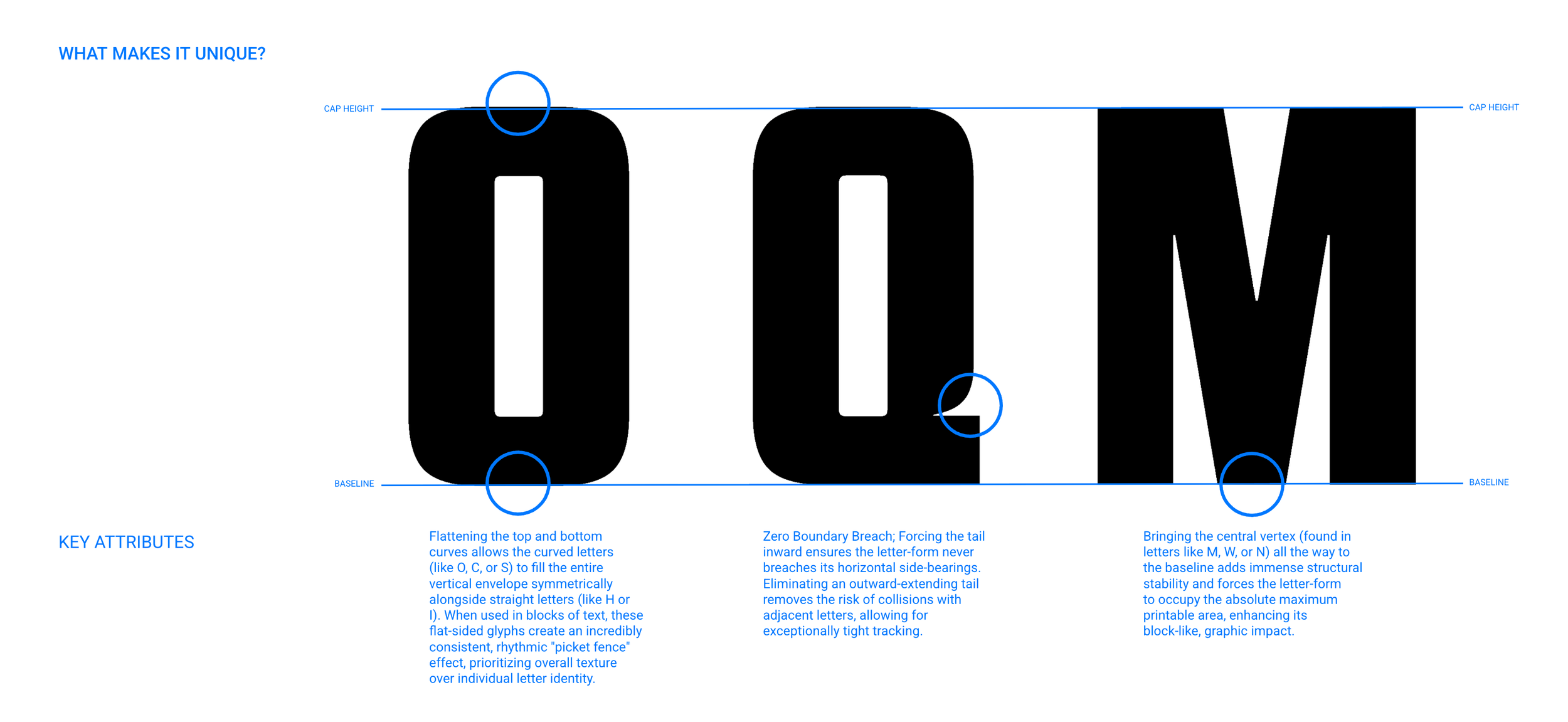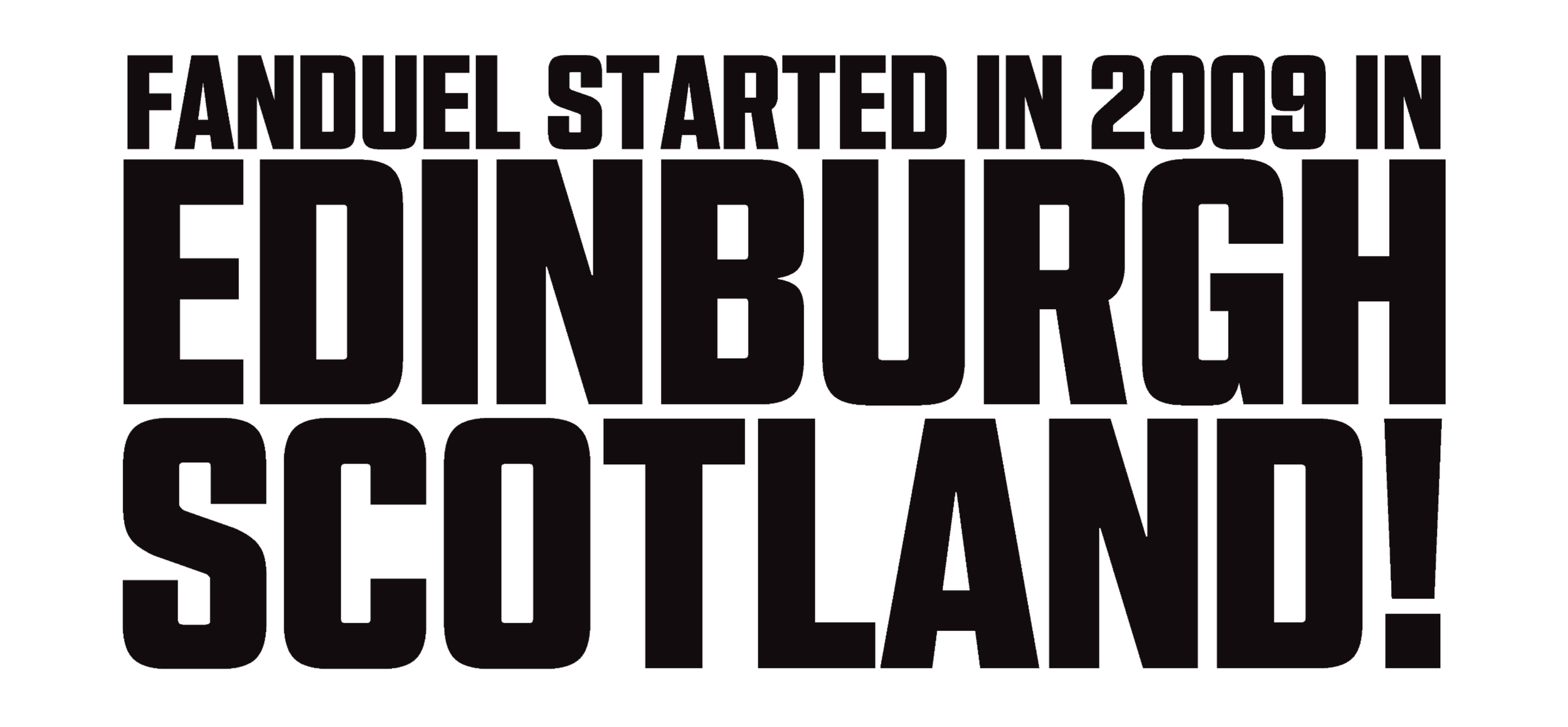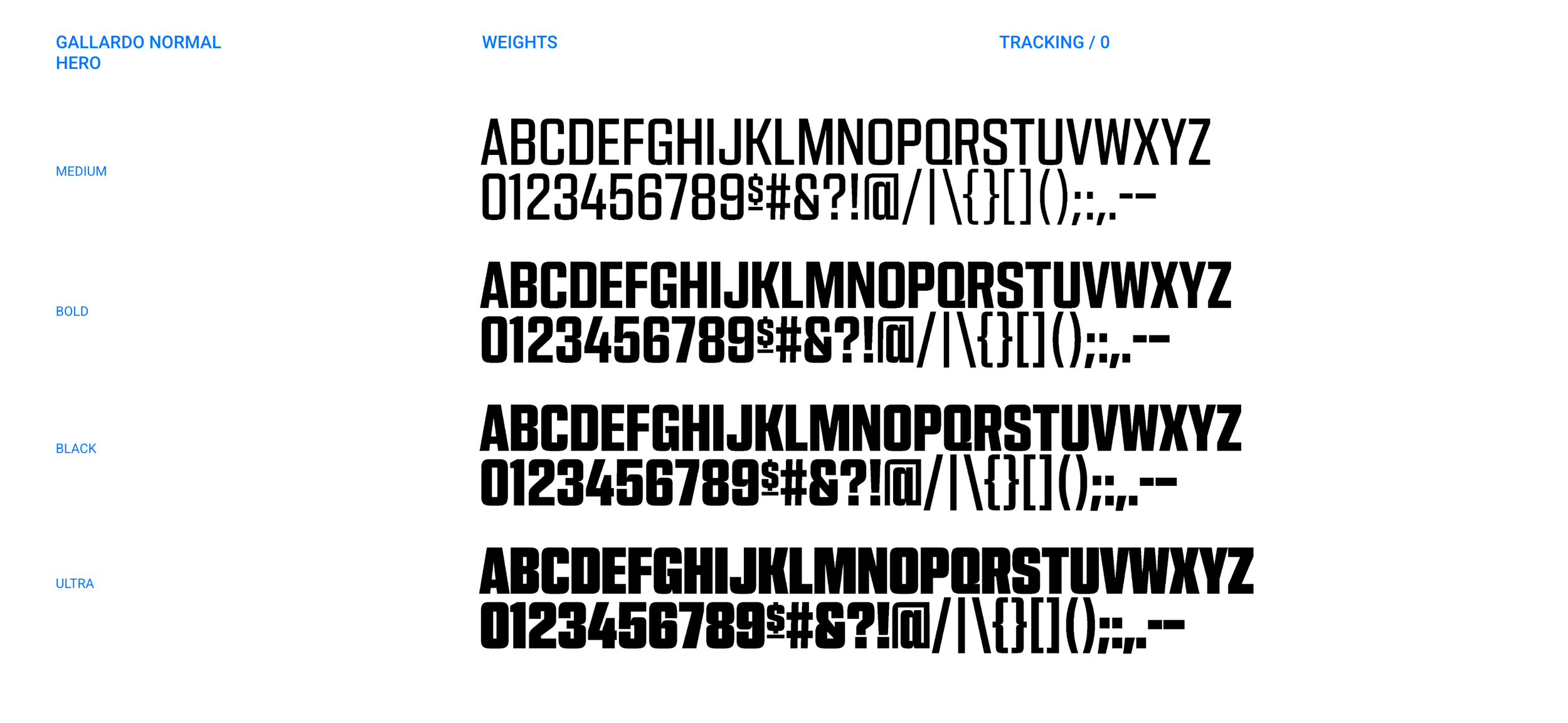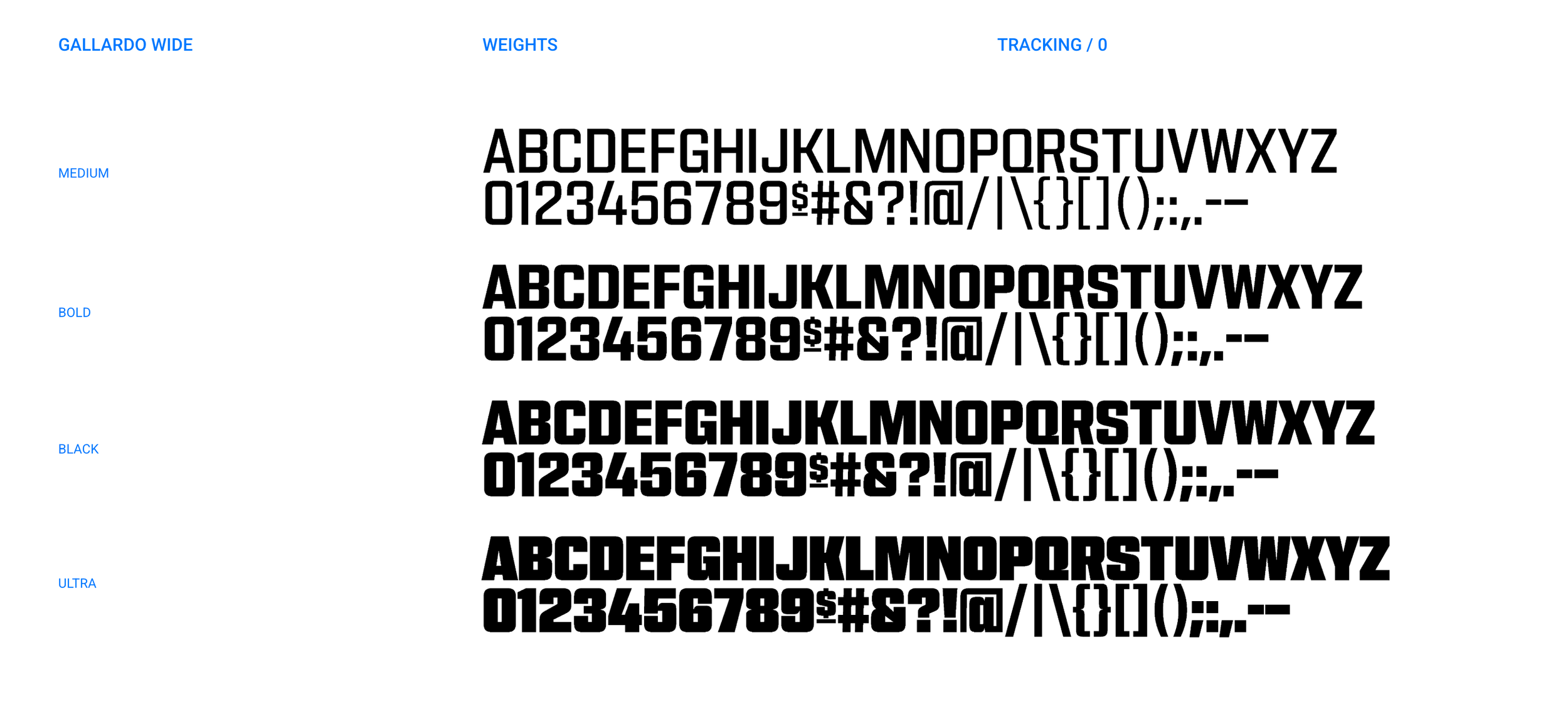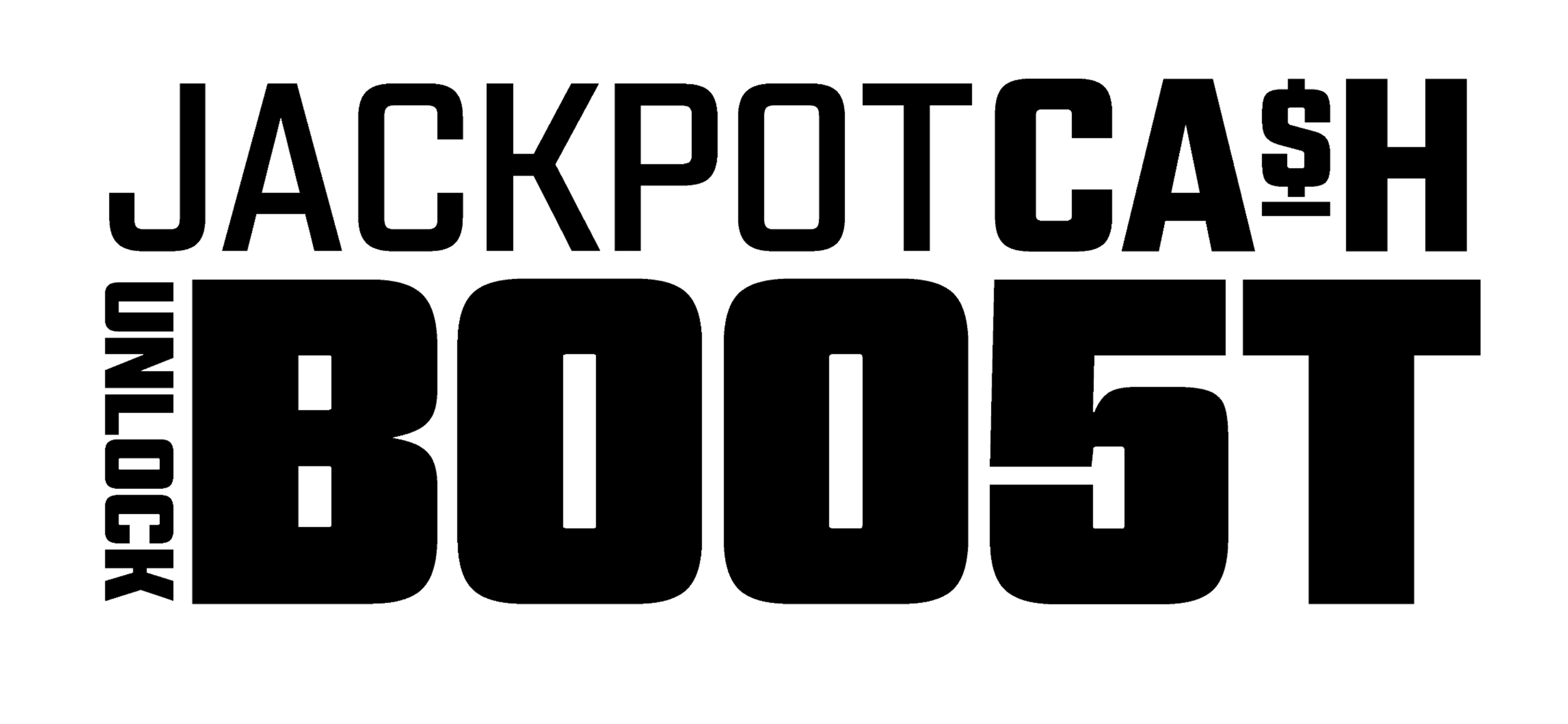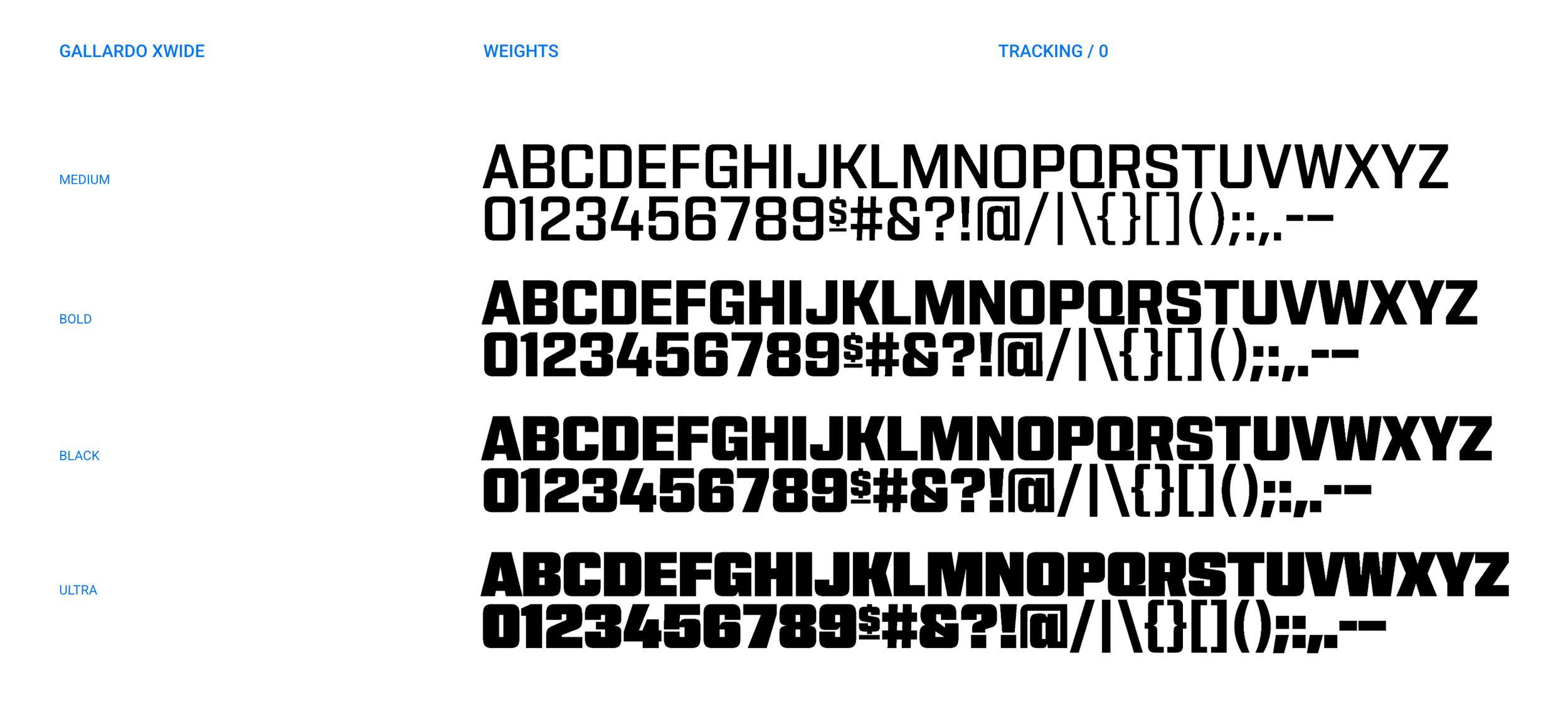
FANDUEL CUSTOM FONT
I led the development of FanDuel’s first custom typeface because I believed the brand needed a distinctive and ownable visual element. Over six months, I directed the McClure team (CD and type designer) alongside our internal team, ensuring the system could perform across every product, platform, and marketing touchpoint. The initiative created nearly $5 million in savings while giving FanDuel a flexible new brand asset built specifically for its needs.
I left the company during final testing, just two weeks before completion. Without my knowledge, the team named the typeface Gallardo to honor my leadership and contribution. It remains one of the most meaningful honors of my career and a reminder of the impact I made on both the brand and the people behind it.